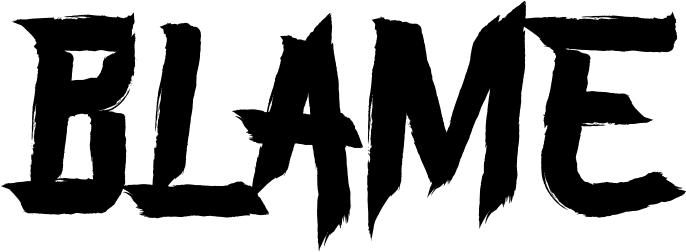
Blame Font
This font is inspired by the movements of samurai fighters. You can pay attention to the sharp and skillful lines that have been designed. With a lot of glyphs and characters, you do not need to search among other samura…
This font is inspired by the movements of samurai fighters. You can pay attention to the sharp and skillful lines that have been designed. With a lot of glyphs and characters, you do not need to search among other samurai fonts.
There are many uses for this aggressive bold font, for example, for designing T-shirts, sports logos, sports stadium billboards, martial arts equipment, and martial arts products made in China and Japan.
Bold – Brush Typeface with a unique modern brush / textures effects.